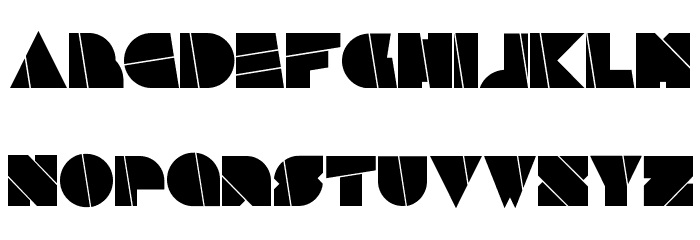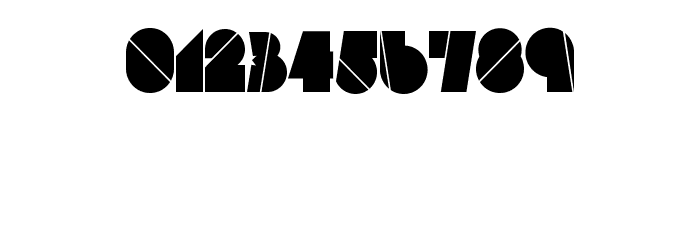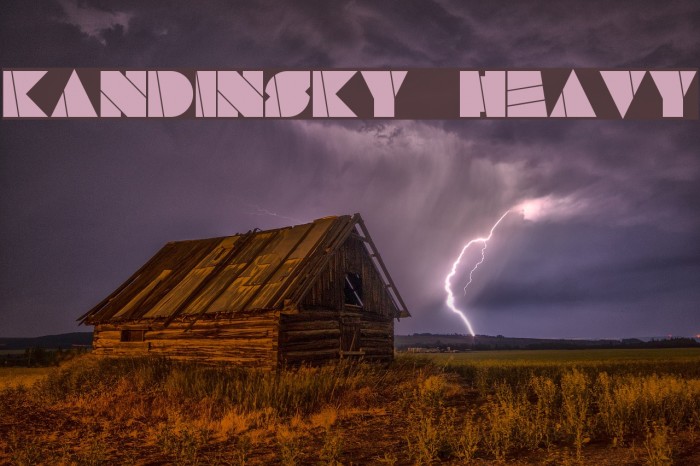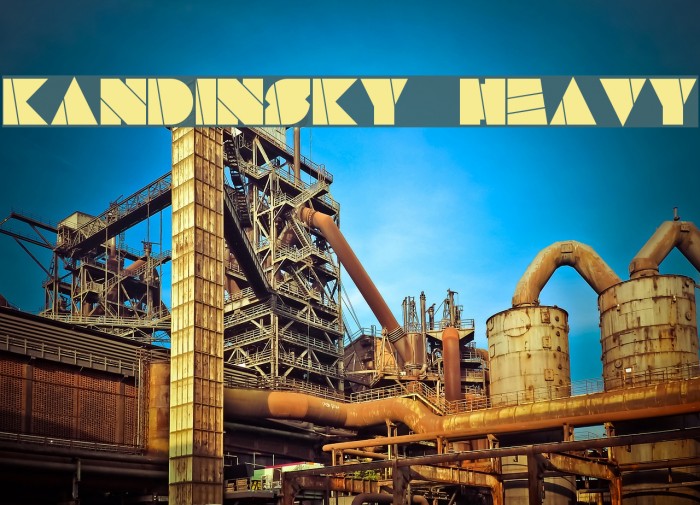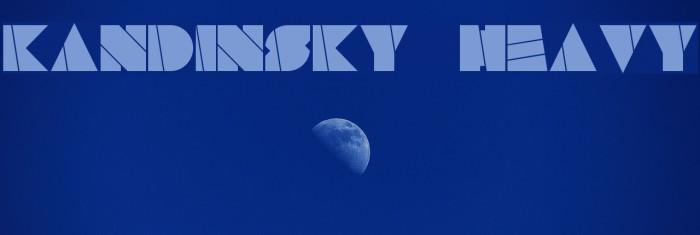
Kandinsky Heavy Font
This font features a bold and geometric design, characterized by its heavy use of angular shapes and sharp edges. Each letter is constructed with a series of intersecting lines and solid blocks, creating a sense of movement and dynamism. The font's unique style is reminiscent of abstract art, with a modern twist that makes it stand out. Its boldness and distinctiveness make it ideal for eye-catching designs. The characters are tightly spaced, enhancing the compact and cohesive look of the text. This font is perfect for projects that require a strong visual impact.
A bold, geometric font with angular shapes and sharp edges.
- Proposed Projects: Ideal for posters, logos, album covers, and modern art-themed designs.
- Character Spacing: Tight
- Use Case: Logos, Headlines